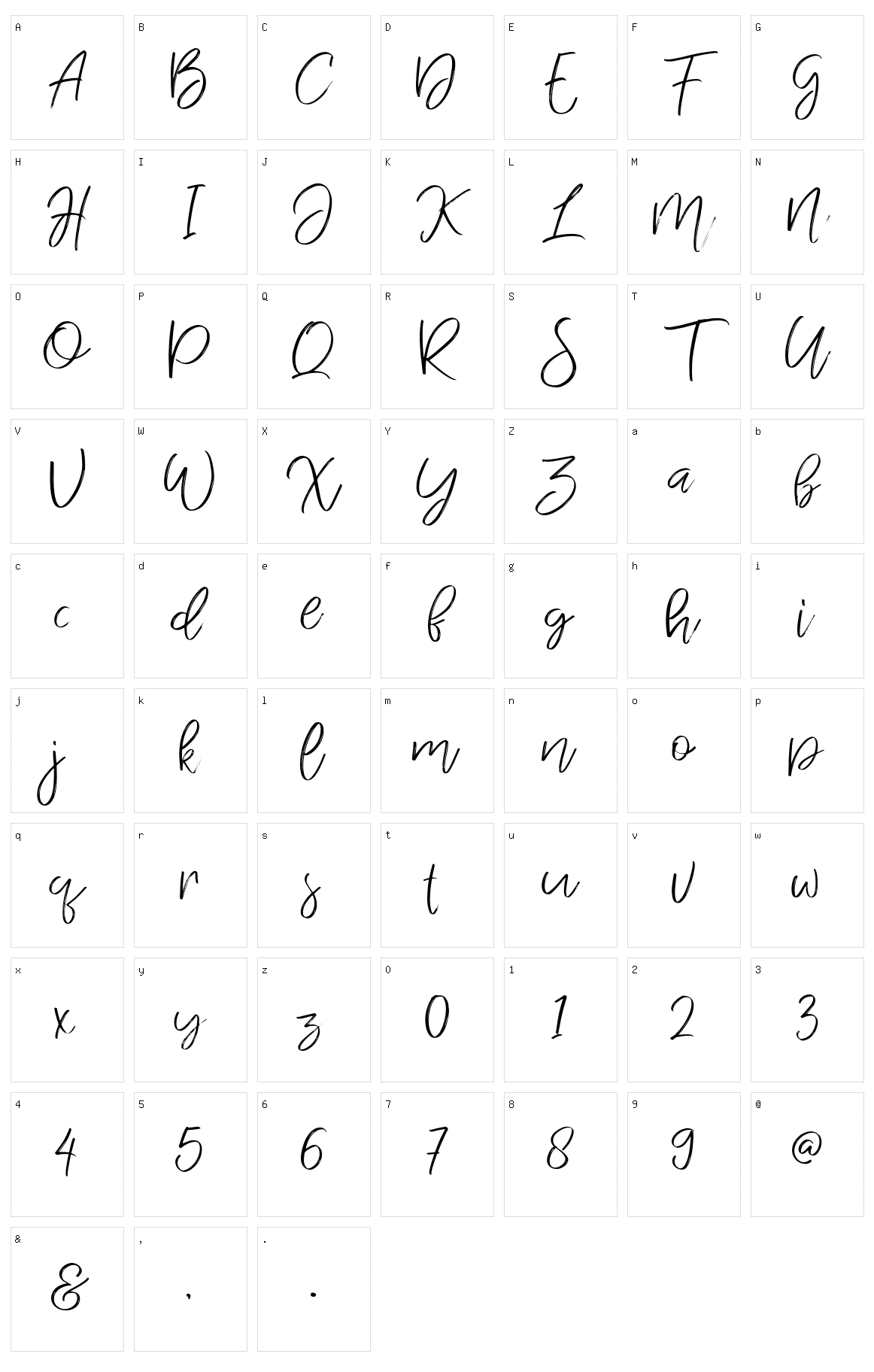
Introducing Jandys Typeface which has a fast dry brush and elegant style. So it looks natural like a handwritten. This font is best used for your design project that has the concept of elegant, cool and fun. Can also be applied to the design of a logotype, header website, make some lettering a quote, t-shirt design, wedding card design etc.
Jandys has two font styles are similar but different, namely is Jandys Dua but that you also get a Jandys Swash of dry brush formatted like a using font.
Jandys Typeface deserve to be one of your fonts collections, because it is unique, elegant and has many options of alternative glyphs.